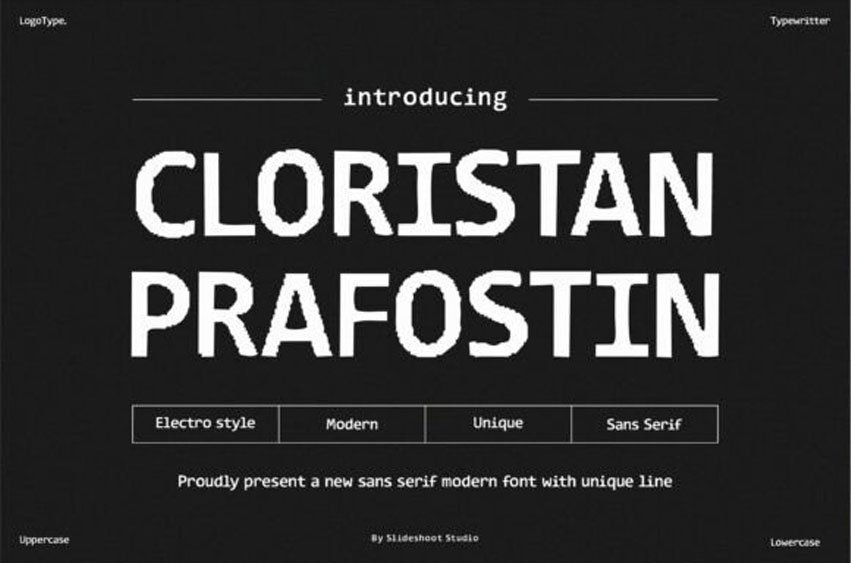
Cloristan Prafostin Font
Cloristan Prafostin Font is a bold sans-serif typeface with a modern, electro-style design.
Its unique lines and typewriter-inspired texture make it perfect for tech projects, logos, and futuristic branding. Stand out with this minimal yet distinctive font.